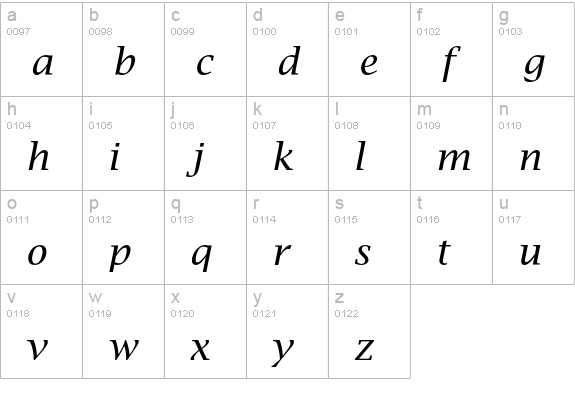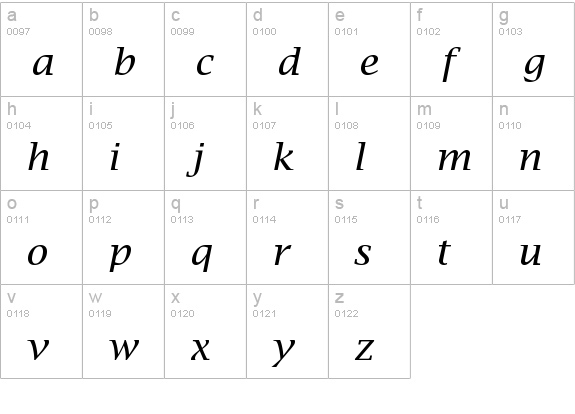
LucidaBrightEF-RomanIta Font Details
LucidaBrightEF-RomanIta is a beautiful and elegant font that exudes sophistication and style. Its sleek italic design adds a touch of flair to any text, making it perfect for both professional and creative projects. This font is versatile and can be used for a wide range of purposes, from formal documents to invitations and marketing materials. What makes LucidaBrightEF-RomanIta even more appealing is that it is available for free download at FontsMarket.com. This means that you can easily access this stunning font without any cost, making it a valuable addition to your font collection. With its timeless appeal and effortless charm, LucidaBrightEF-RomanIta is sure to elevate the look of any design project.